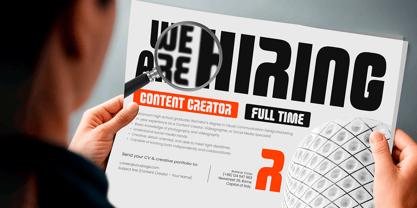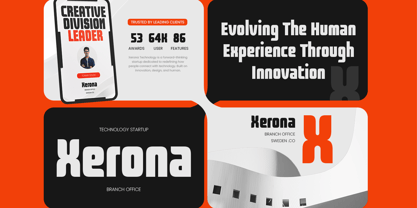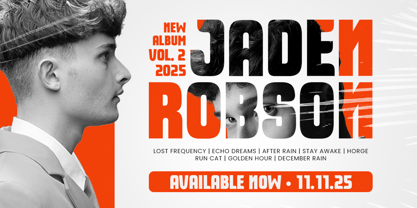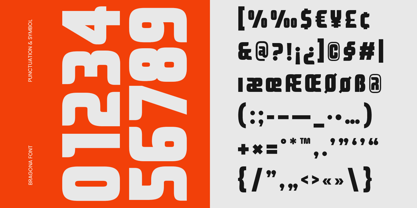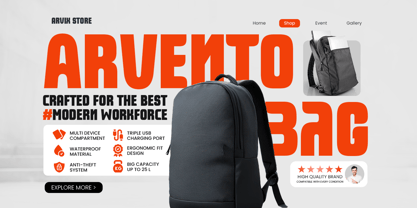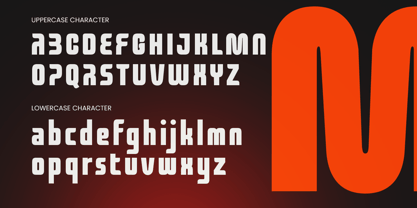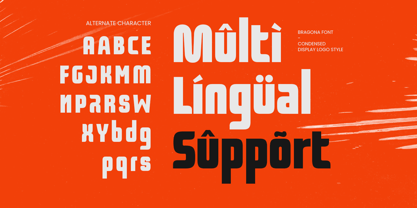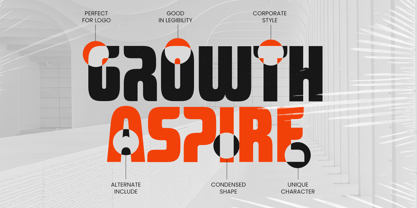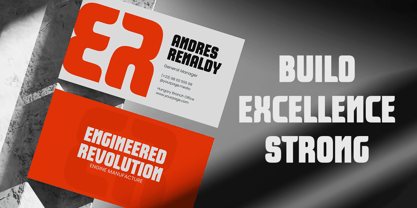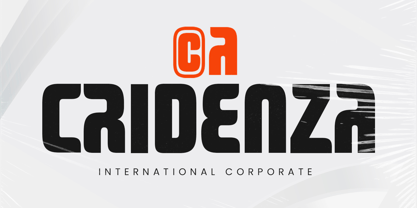
BRAGONA is a condensed techno logo font designed to deliver a clean, futuristic edge with strong readability. Its narrow proportions and precise geometric structure create a modern tech tone that feels fast, efficient, and forward-thinking—perfect for contemporary digital identities.
Built for logos, logotypes, tech startups, esports branding, app interfaces, and product branding, BRAGONA performs beautifully across website headers, UI design, posters, signage, social media graphics, and high-impact headlines. The condensed width helps you save space while maintaining a bold, high-tech presence.
Whether you’re crafting a cyber-inspired brand, a software identity, or a futuristic campaign, BRAGONA brings streamlined techno energy that keeps your typography sharp, modern, and unmistakably digital.
BRAGONA – Condensed Techno Features
Condensed techno letterforms optimized for logo design
Futuristic, clean geometry for modern tech branding
Ideal for logos, headlines, UI/UX, and digital products
Strong readability in tight spacing and compact layouts
Includes uppercase, lowercase, numerals, and punctuation
Works perfectly for digital screens and print production
OpenType features for flexible, professional typography
Multilingual Support Afrikaans, Albanian, Asu, Basque, Bemba, Bena, Breton, Chiga, Cornish, Dutch, English, Estonian, Filipino, Finnish, Friulian, Galician, German, Gusii, Indonesian, Irish, Italian, Kabuverdianu, Kalenjin, Kinyarwanda, Luo, Luxembourgish, Luyia, Machame, Makhuwa-Meetto, Makonde, Malagasy, Manx, Morisyen, North Ndebele, Nyankole, Oromo, Portuguese, Quechua, Romansh, Rombo, Rundi, Rwa, Samburu, Sango, Sangu, Scottish Gaelic, Sena, Shambala, Shona, Soga, Somali, Spanish, Swahili, Swedish, Swiss, and more.
Bragona